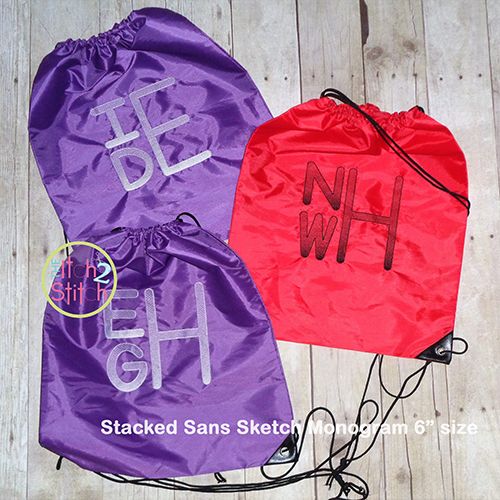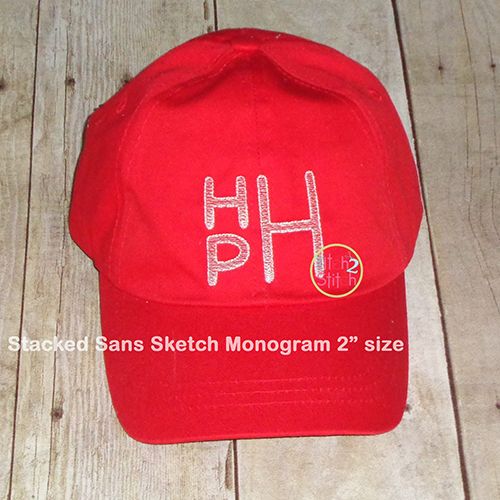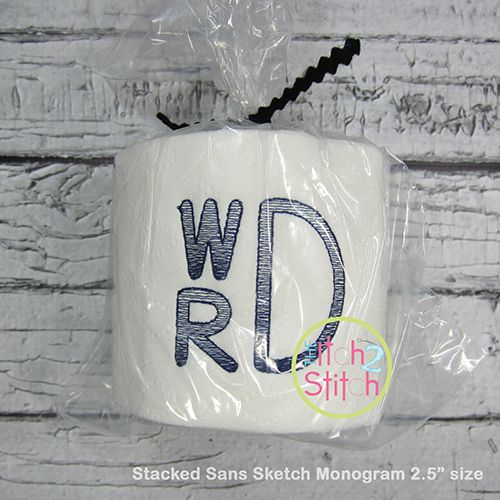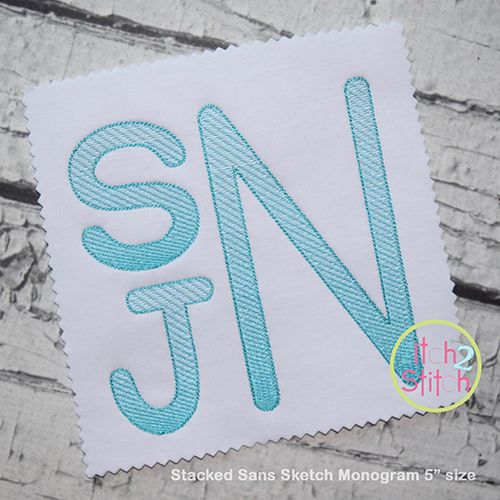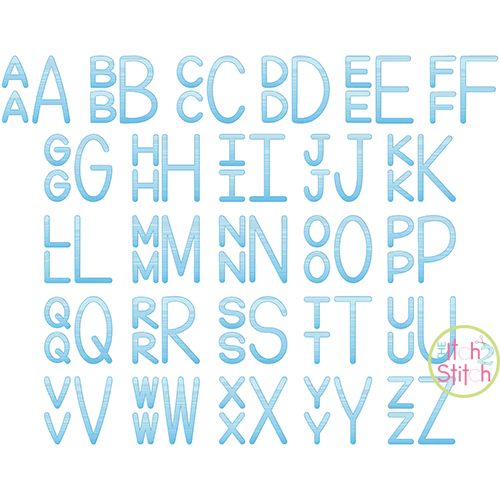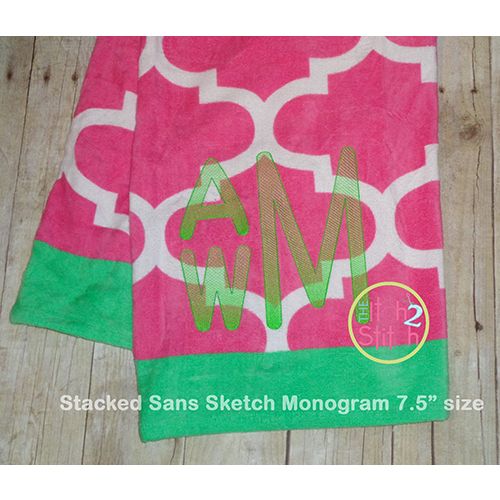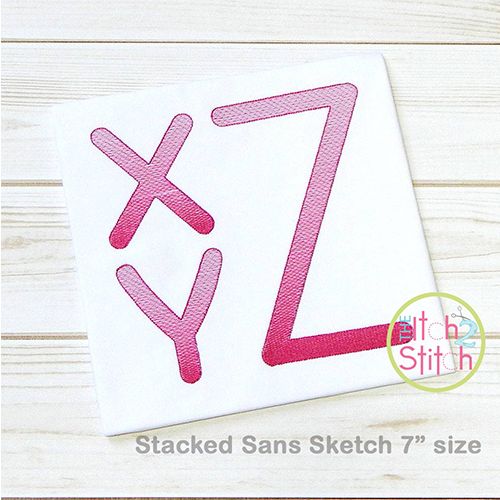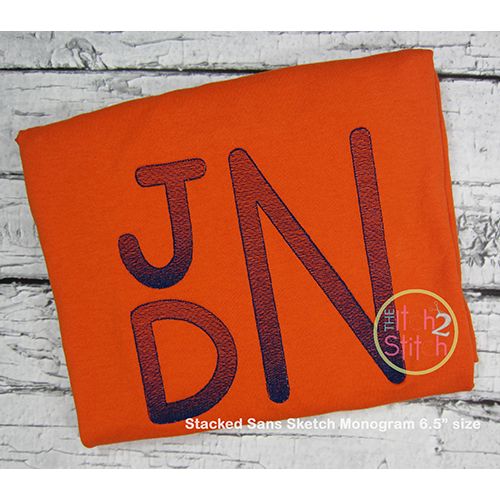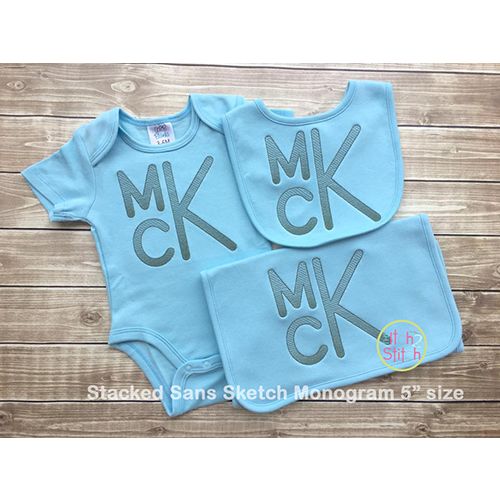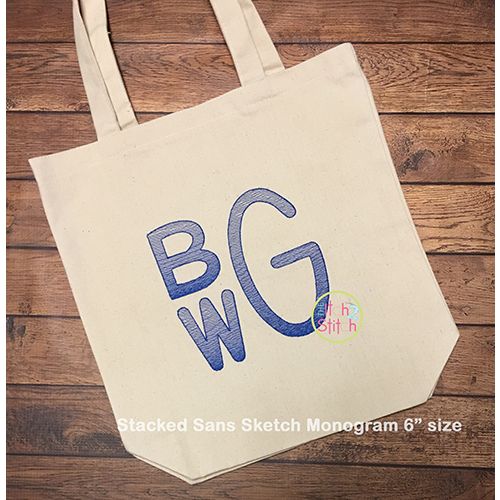
Stacked Sans Sketch Monogram Embroidery Font
You will receive all Aa-Zz letters (52 files) in twelve sizes. For each size of the monogram there are two styles of letter. Use two "lowercase" letters stacked on the left and a "capital" letter on the right from the same size folder to create the square shaped monogram.
Please note this is not applique, nor is it a traditional satin or fill stitch font. The light and airy "sketch" fill pattern allows for a quick stitch out. The space between each line of stitching varies such that it is more dense at the bottom than the top of each letter to create the shading effect. The letter is finished off with a triple bean stitch outline. Please refer to the close up image. We do not recommend resizing this font in software. Small satin stitch sizes sold separately.